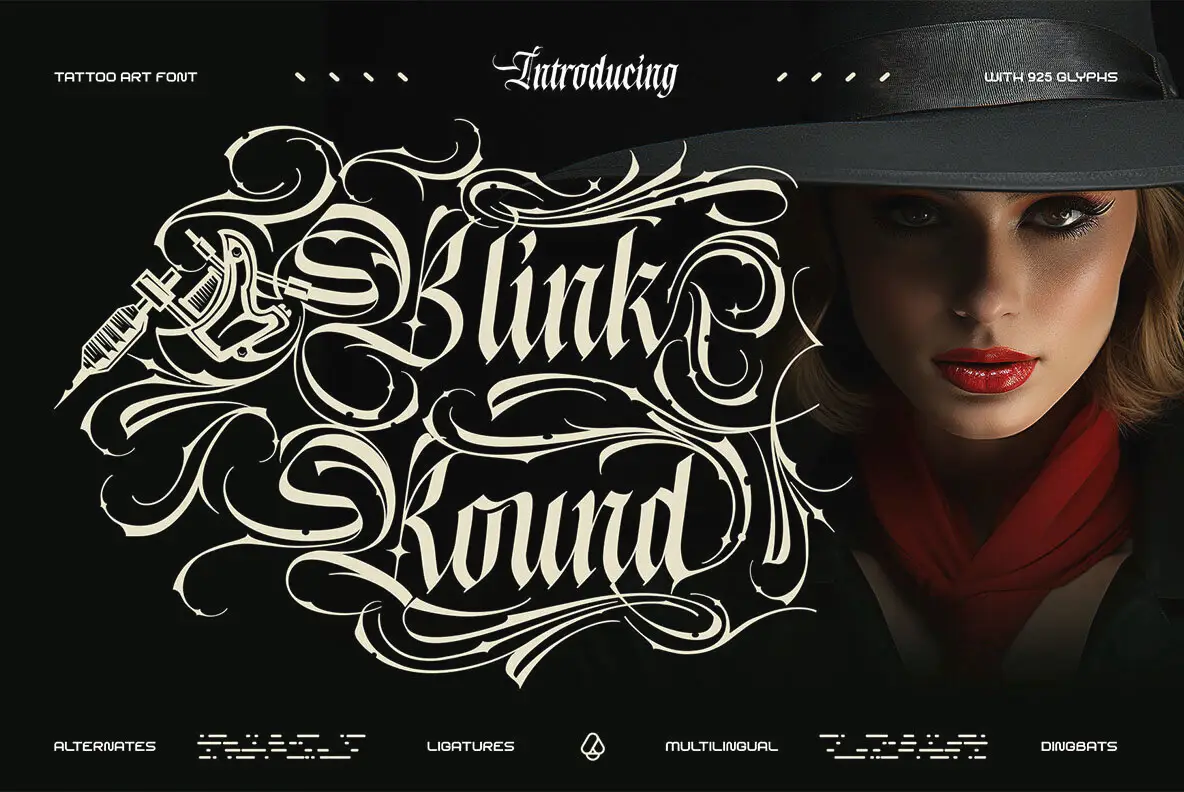
Blink Round Font
Blink Round Regular
Blink Round doesn't merely speak; it roars with audacious flair. Inspired by the rebellious energy of tattoo parlors, this blackletter script exudes confidence and character. Unlike ordinary gothic fonts, Blink Round serves as a bold declaration—a true statement piece for the unapologetic creator. Each character emerges with aggressive precision, showcasing intricate swashes that twist and turn like thorny rose vines. The sharp, decisive strokes elevate your text's presence, while an extensive set of stylistic alternates offers complete creative freedom. Whether crafted for a metal band, a streetwear brand, or a tattoo studio, Blink Round imparts a raw, handcrafted authenticity that stands unrivaled.Blink Round Typeface: Fearless Blackletter with a Vicious Edge